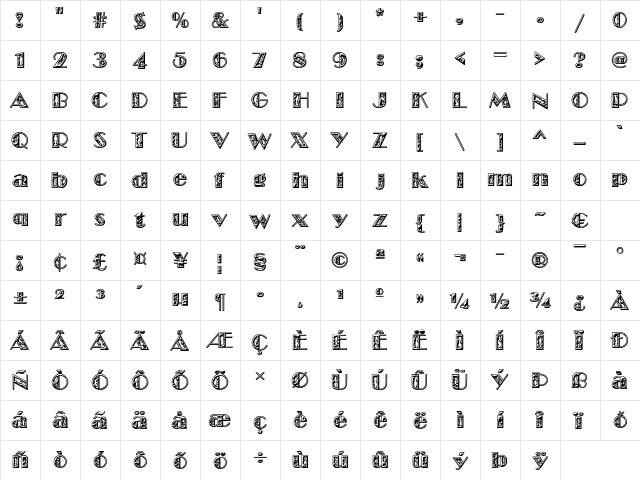
Broadway 'Corroded' Regular Font Preview
Broadway 'Corroded' Regular
Design Context for Broadway 'Corroded' Typeface
Broadway 'Corroded' is a composed and adaptable typeface that performs quietly and consistently across a wide range of design contexts.